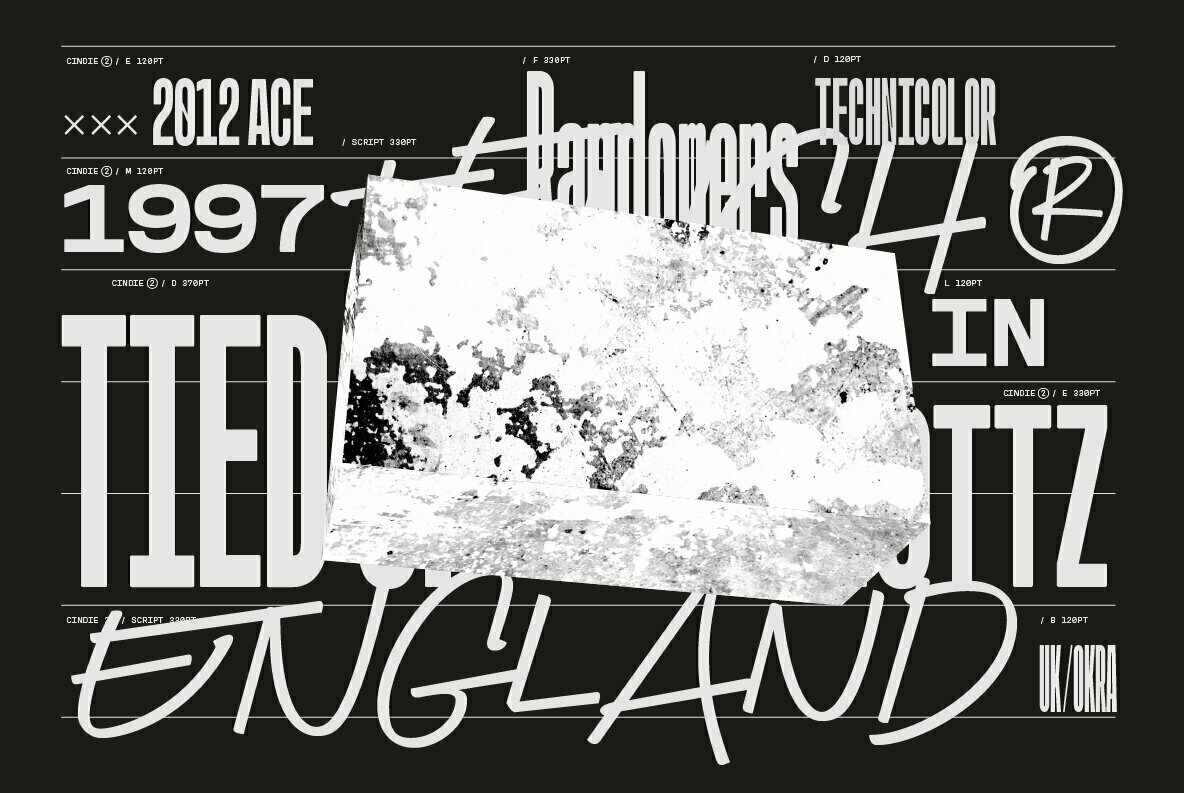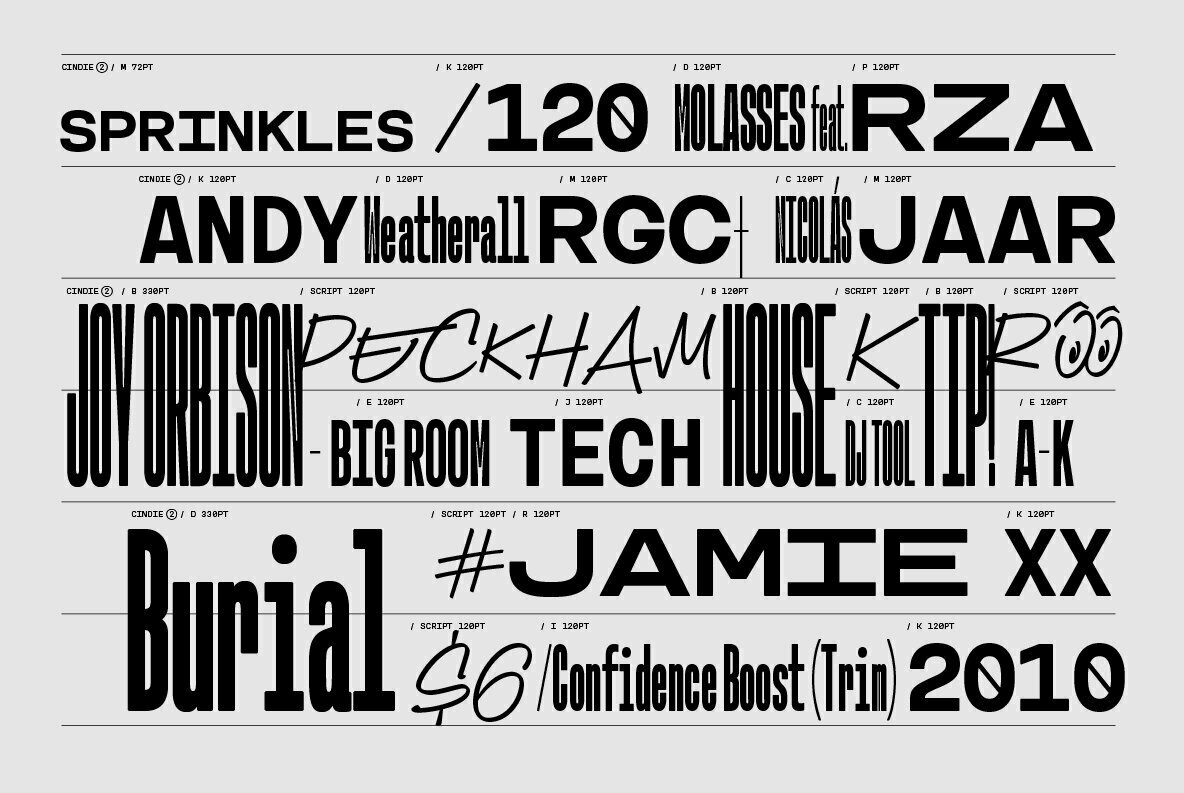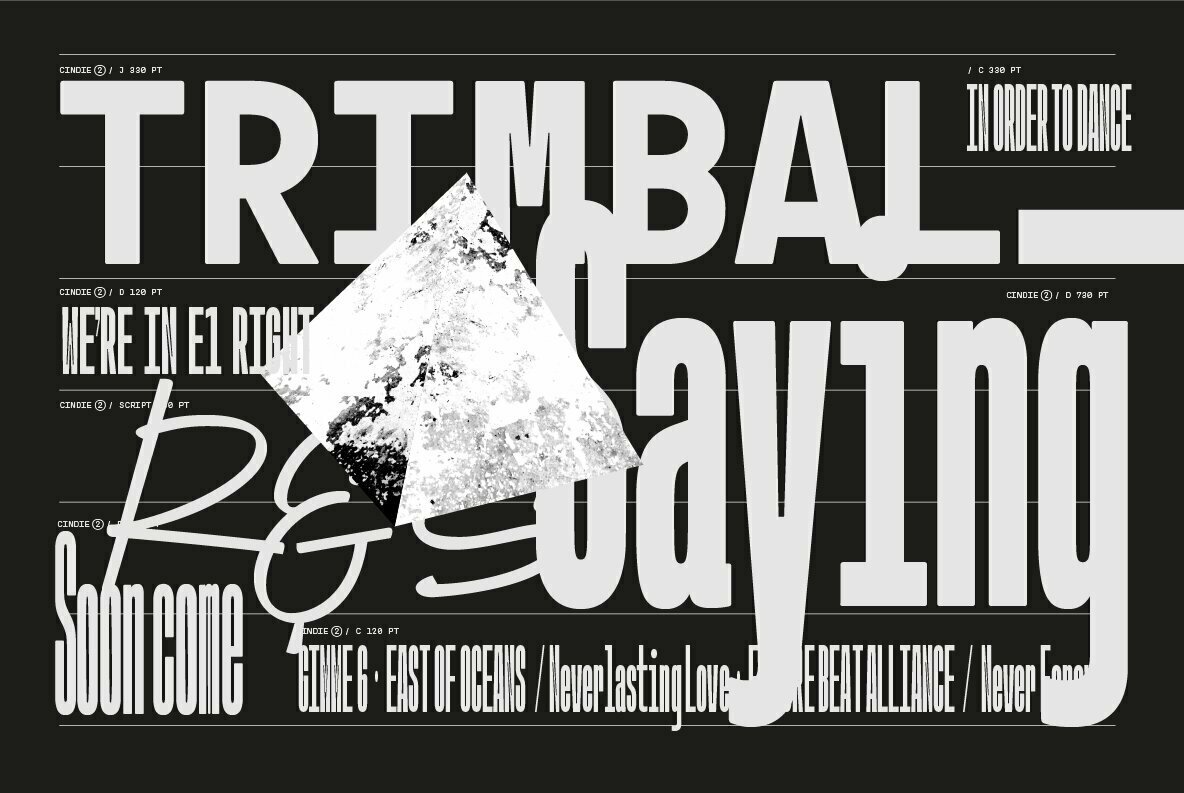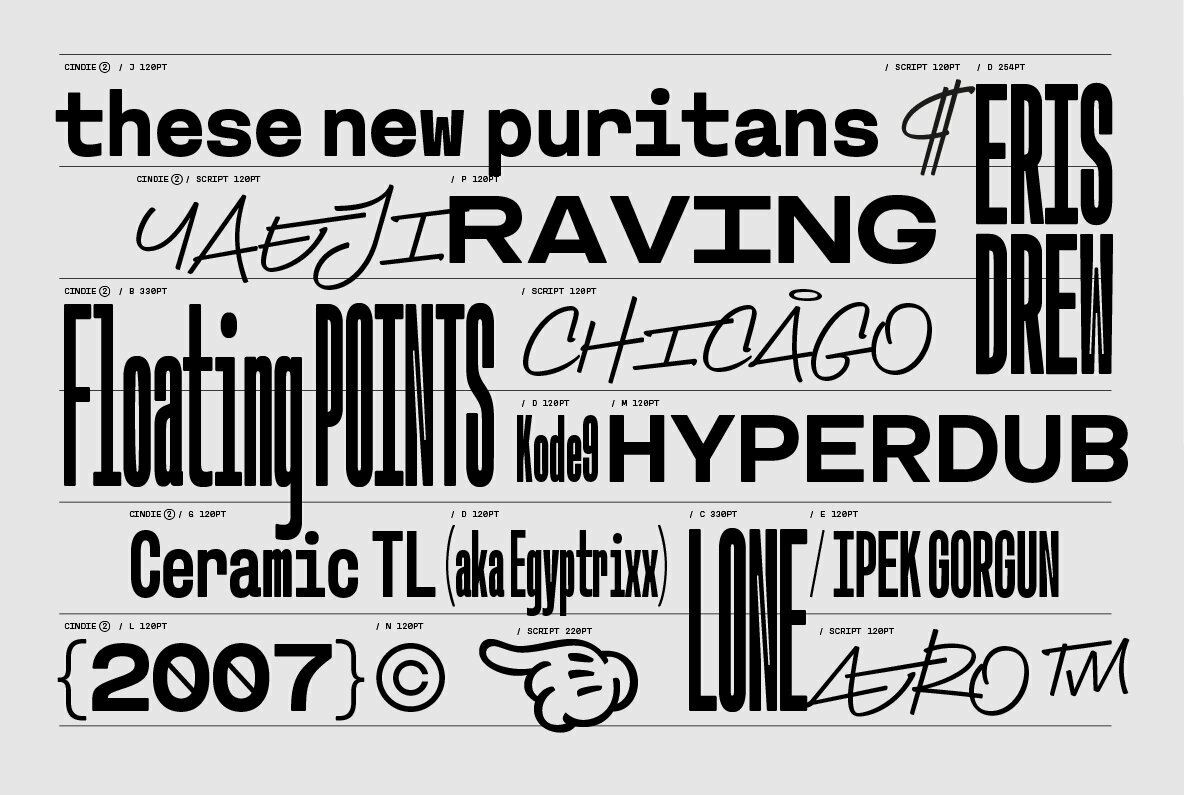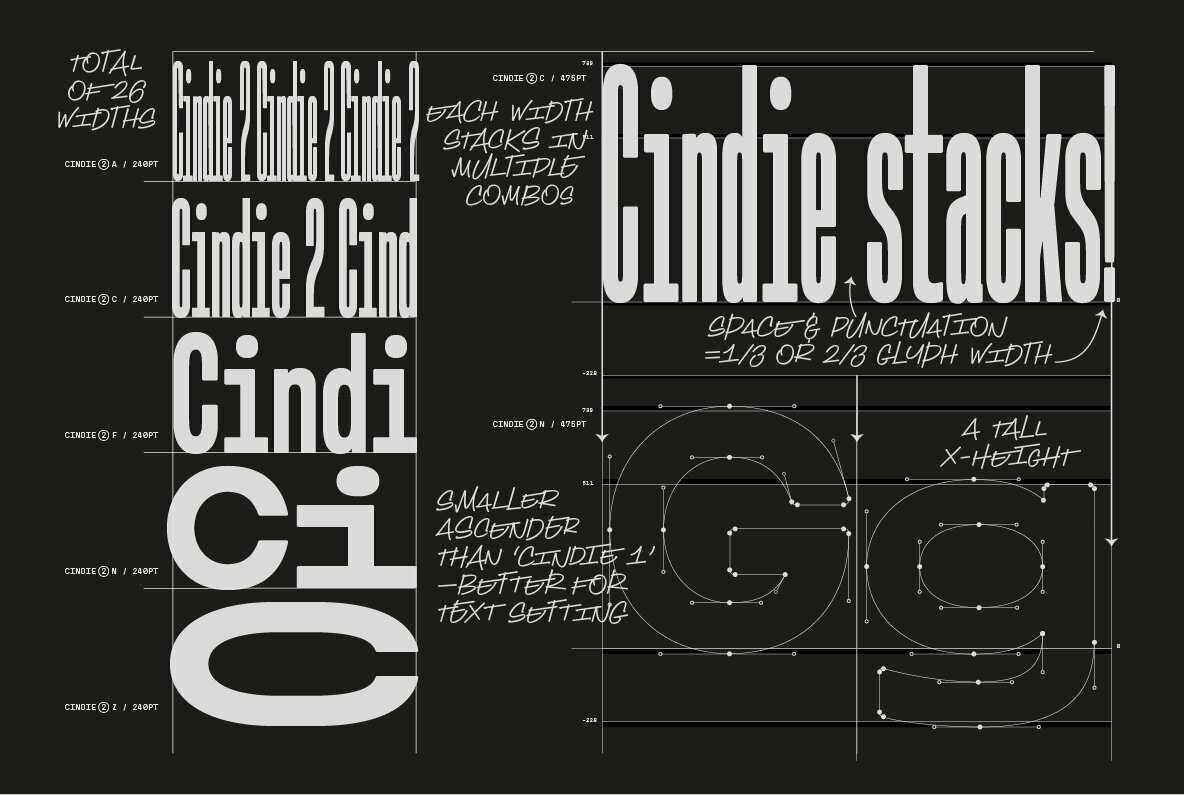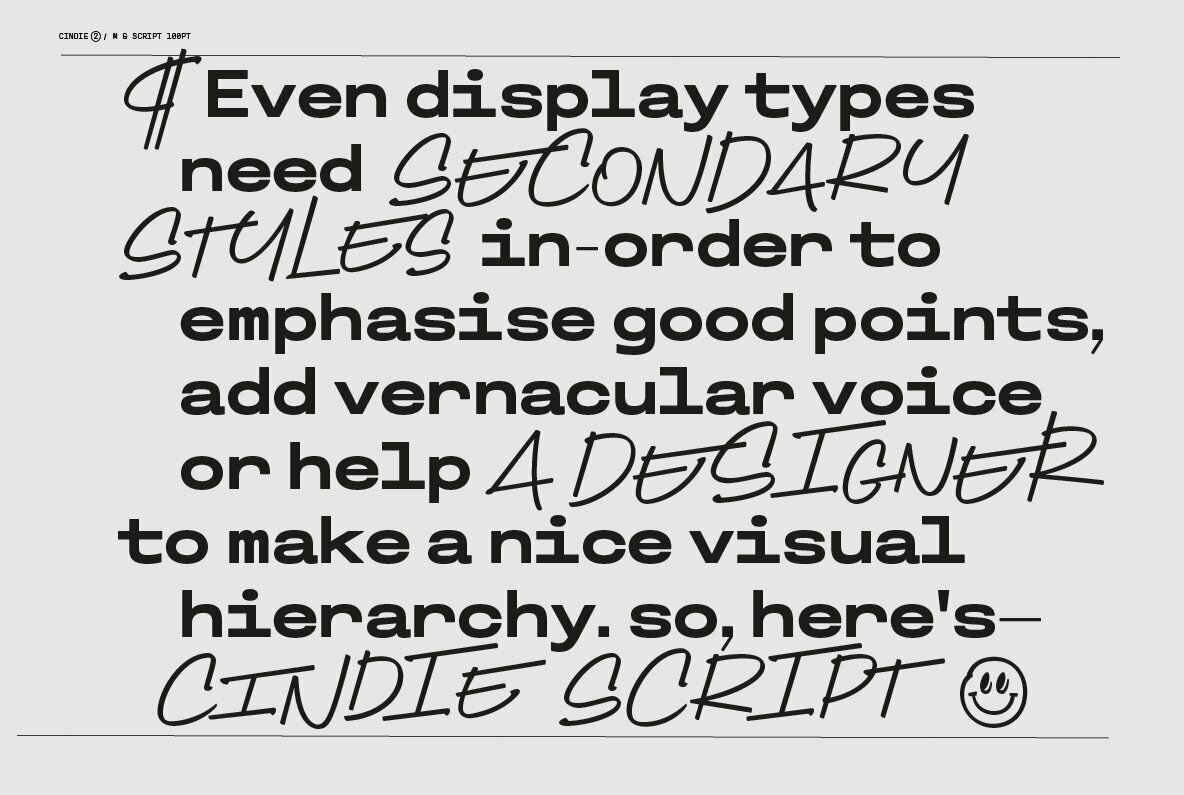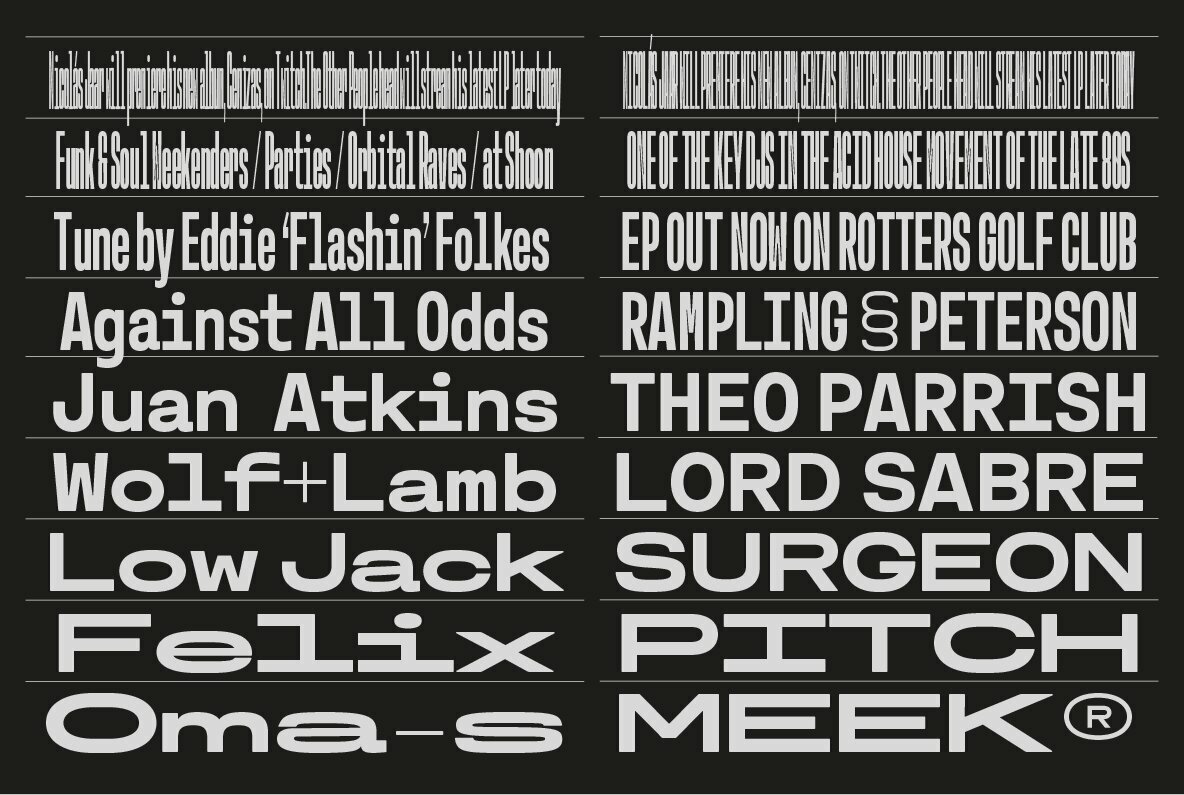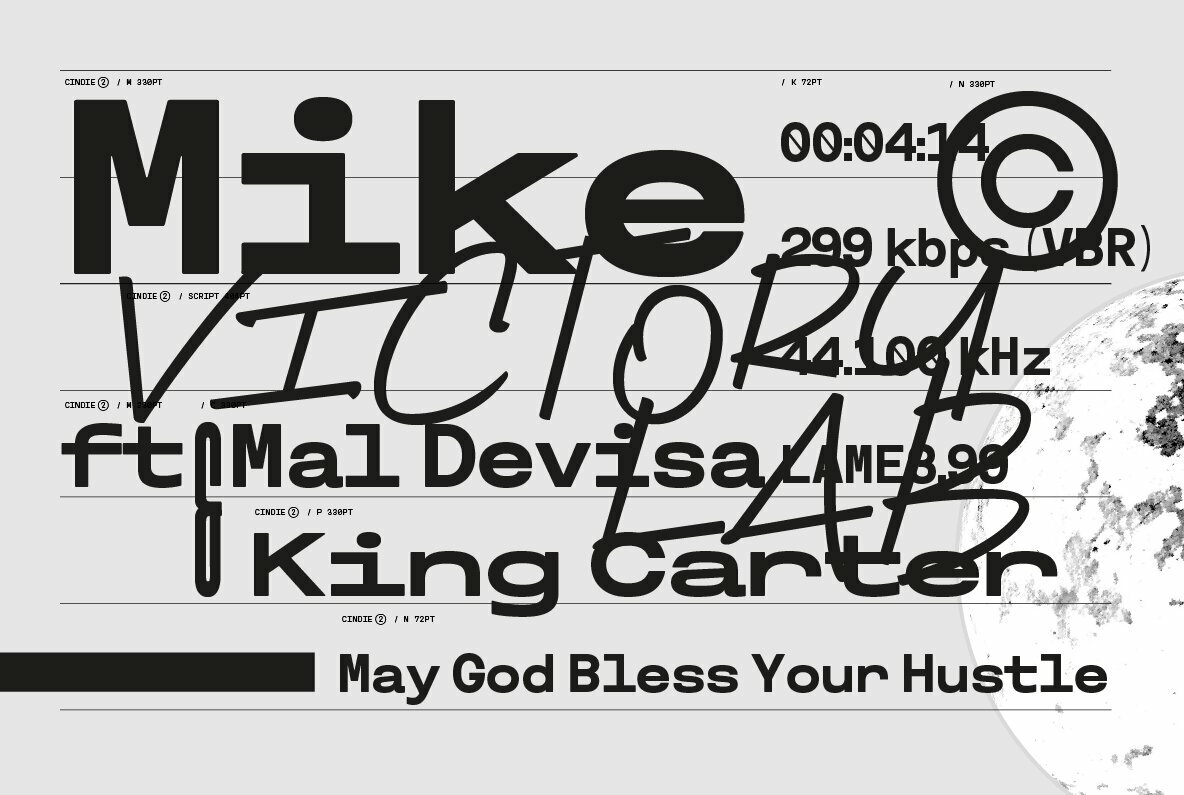
Cindie 2 Font
Cindie 2 is an update of the optical type Cindie Mono. It retains the mono-stacking system of the original, but some letters have been redrawn and it now includes a lowercase.
Cindie 2 contains 26 mono-spaced widths all of which are an increment wider/narrower than the next. This allows for complex multi mono-stacking of the font. In addition, punctuation, space and symbols are either a 1/3 or 2/3 width of a letter. This sounds complex, but it makes the wider widths more practical to use and gives a designer more options for the mono-stacking system at the heart of Cindie.
Cindie 2 also has a script typeface accompaniment. This typeface is not mono but is instead built on a system of Contextual Alternates [NB - Script really works best when you keep your .calt feature on!] and works more like handwriting.
Good for posters, branding and headlines, Cindie 2 has 26 stackable monospaced widths which will fit any job.